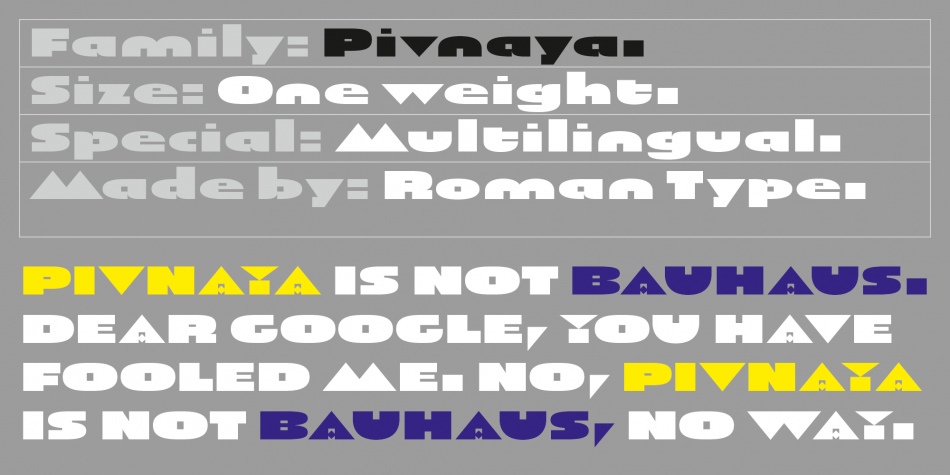
Pivnaya Font
Pivnaya Font is perfect for brewery branding projects, beer hall signage, traditional pub communications, craft brewing marketing, oktoberfest event materials, tavern restaurant menus, beer festival graphics, and authentic Germanic advertising campaigns. This robust typeface works exceptionally well in both digital applications and print media where brewing tradition and hearty authenticity are fundamental design requirements.
What makes Pivnaya Font so exciting is its masterful capture of European beer hall culture and brewing tradition through bold letterforms that seem forged in the same spirit as centuries-old brewing craftsmanship. The font features sturdy characters with brewing proportions, malty curves, and traditional details that evoke the warm atmosphere of authentic beer halls and the rich heritage of master brewers. Its hearty personality and brewing heritage make it ideal for brands seeking to communicate authentic brewing values, traditional craftsmanship, and the convivial spirit of beer culture while maintaining excellent readability across all brewing applications.
The Pivnaya Font family includes multiple weight variations from regular to extra-bold, along with traditional alternates and brewing ornamental elements. Each style maintains the typeface's brewing character while offering comprehensive character sets including traditional numerals, beer-inspired punctuation marks, and special symbols designed to enhance brewing communications and authentic tavern branding efforts across various beer culture contexts.
The carefully crafted brewing details and optimized tavern performance in Pivnaya Font ensure both traditional authenticity and clear communication across all brewing applications. Its hearty presence makes it perfect for brewery branding, beer marketing materials, and tavern communications where its full brewing character can create emotional connections with audiences who appreciate the craftsmanship, tradition, and community spirit of authentic beer culture.